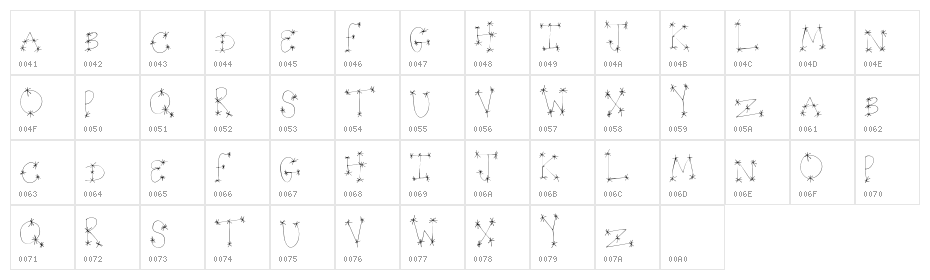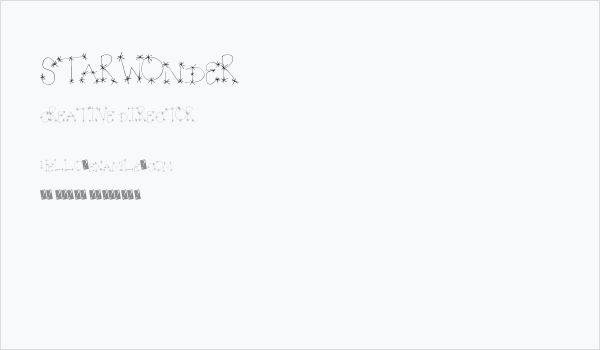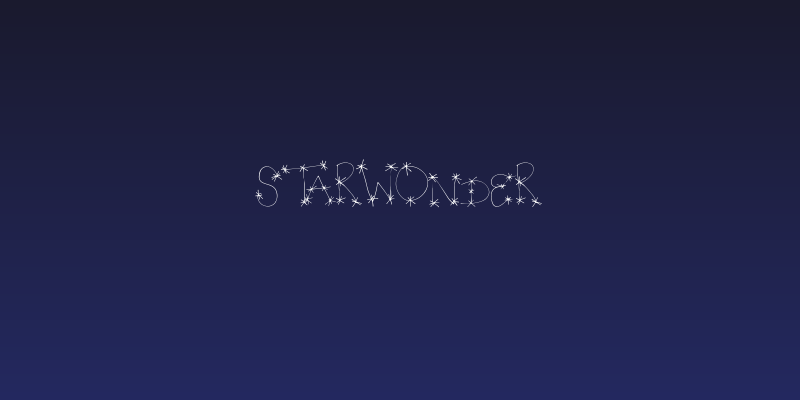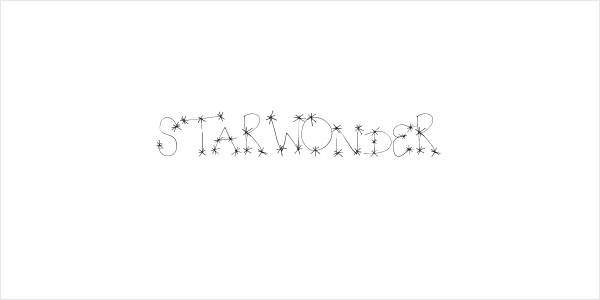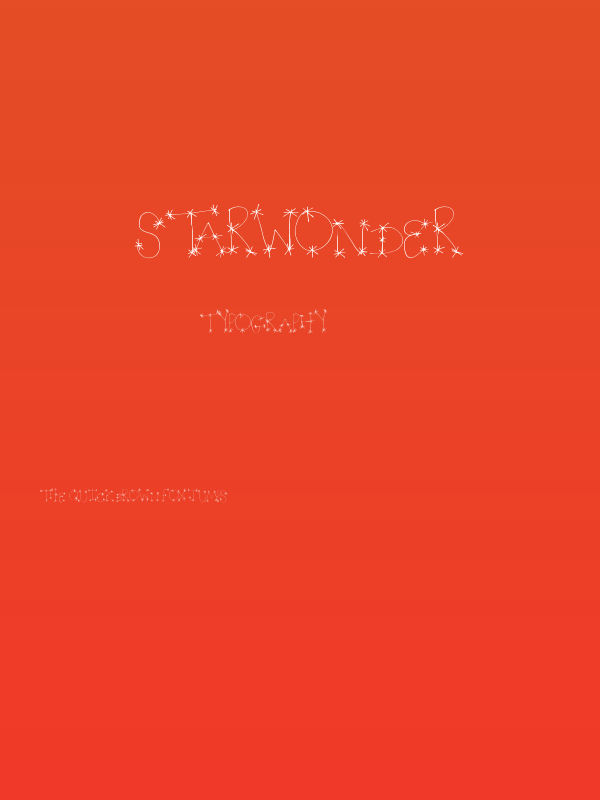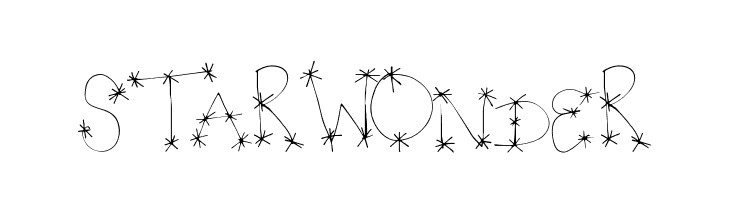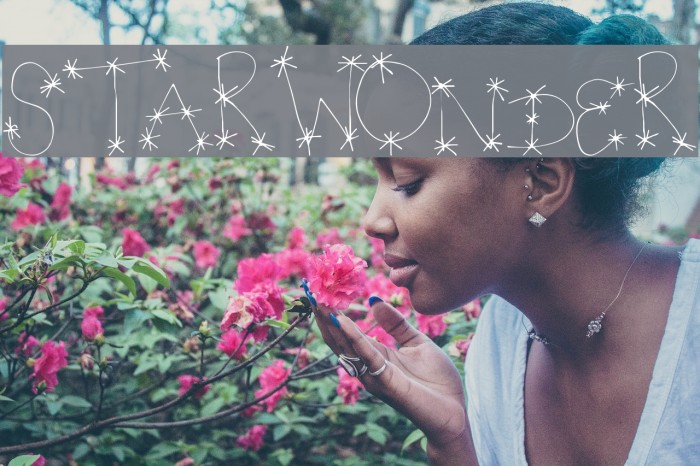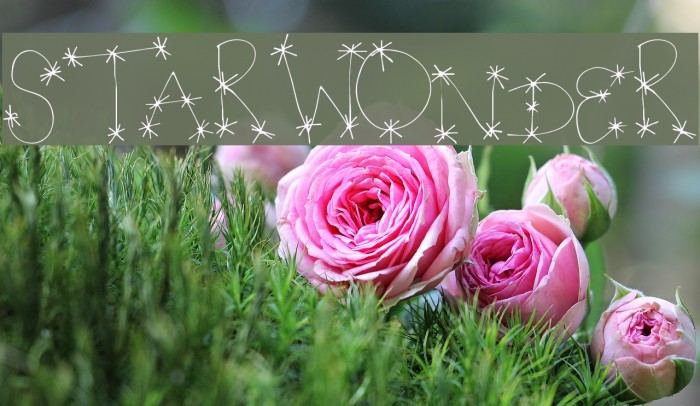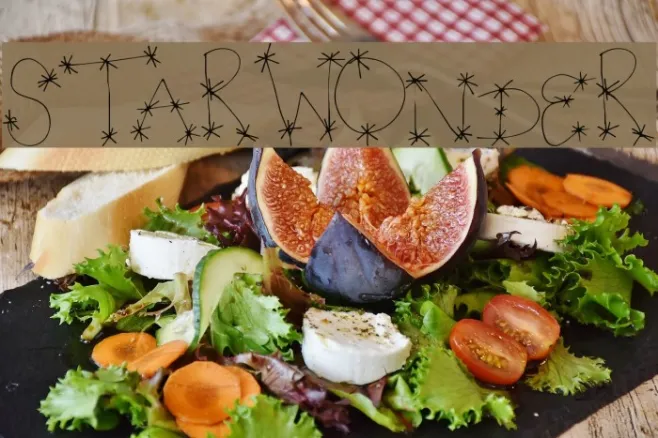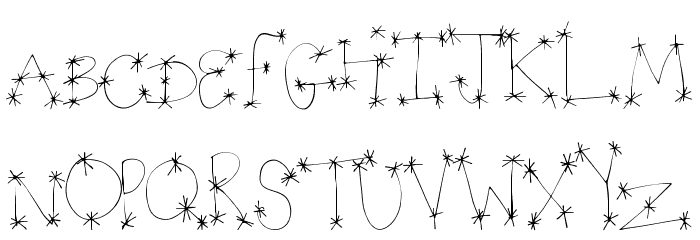
StarWonder Font
StarWonder Description
This whimsical and decorative font features letters adorned with star-like embellishments, creating a celestial and playful appearance. The characters are constructed with thin lines, giving them a delicate and airy feel. Each letter is uniquely styled with varying star placements, adding a sense of movement and sparkle. The font's overall design is imaginative and eye-catching, making it suitable for creative and artistic projects. Its distinctiveness lies in the combination of simplicity in line work and complexity in decorative elements, offering a unique visual experience.
| Proposed Projects | Ideal for children's book covers, party invitations, fantasy-themed posters, and creative branding. |